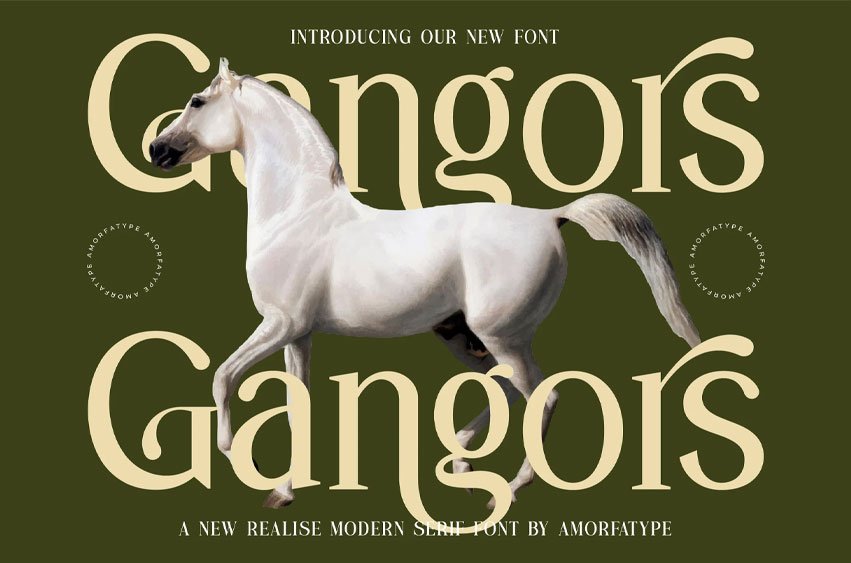
Gangors Font is a modern serif font that combines refined tradition with sleek contemporary design. Its sharp, geometric serifs and clean lines create a bold, distinctive appearance while maintaining excellent readability across various applications. With subtle yet impactful contrasts in stroke weight and elegant detailing, Gangors offers the perfect blend of sophistication and modernity, making it an ideal choice for projects that demand a sense of elegance and clarity.
- Versatile & Timeless – Ideal for both modern and classic compositions
- Multilingual Support – Includes a wide range of international characters
- Complete Character Set: Uppercase, lowercase, numerals, punctuation, and ligatures